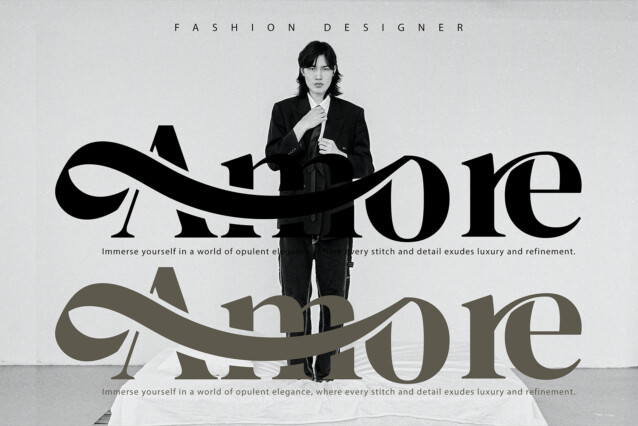
Amore Font
Amore Font is a simple and serif typeface . So perfect for you who needs a typeface for logo designs, magazine, social media, brochure, and many more.